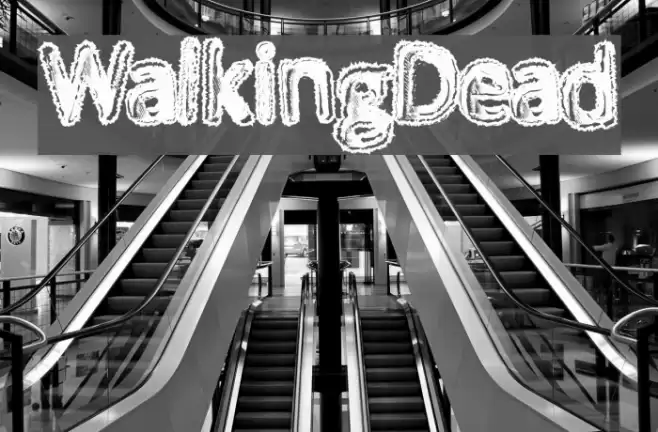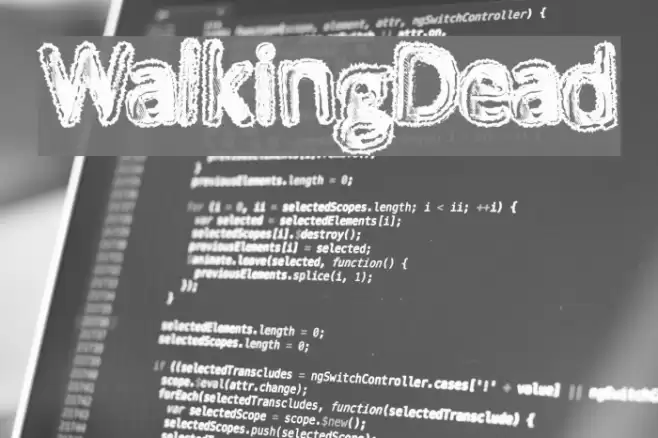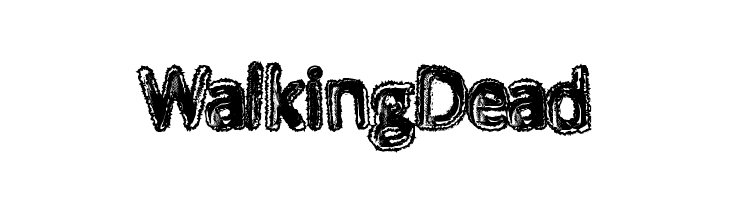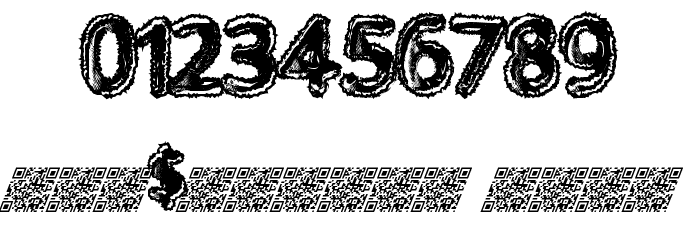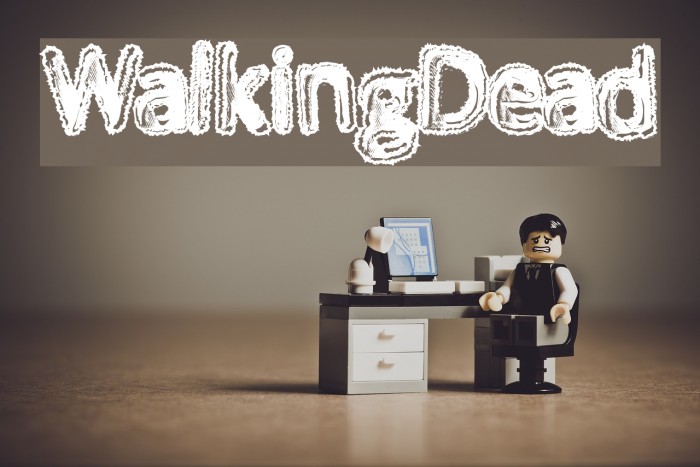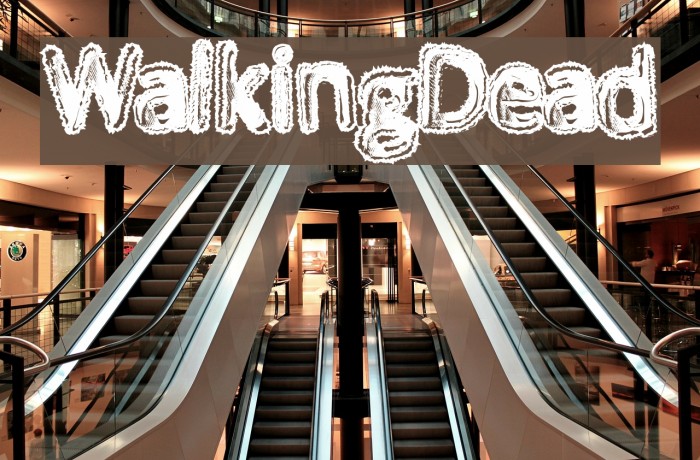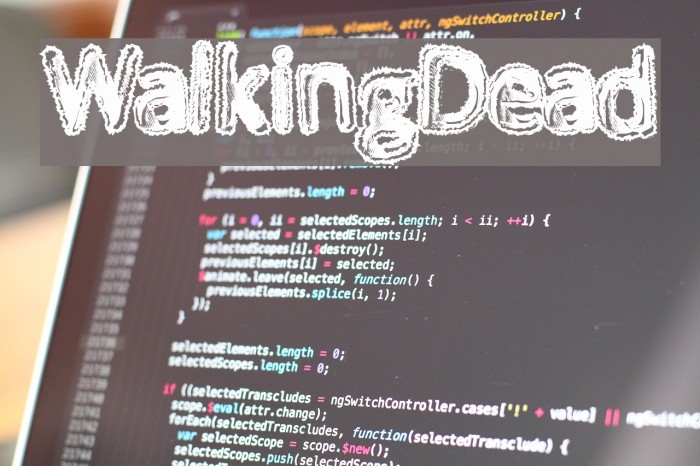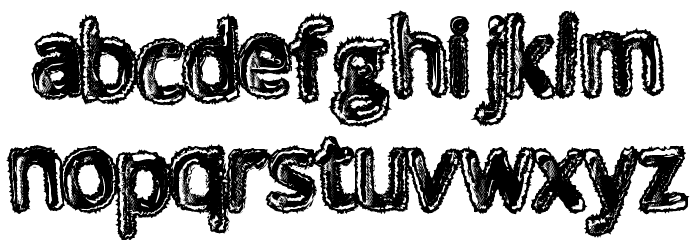
WalkingDead Font
WalkingDead Description
This font features a rugged, distressed style with a bold and impactful presence. The characters have a rough, textured appearance, giving them a hand-drawn, organic feel. The uppercase and lowercase letters maintain a consistent design, with slightly irregular edges that add to the font's unique character. The numbers and special characters follow the same aesthetic, ensuring a cohesive look across all text elements. This font's distinctive style makes it ideal for projects that require a gritty, edgy, or rebellious vibe.
A rugged, distressed font with a bold, hand-drawn appearance from Fancy fonts.